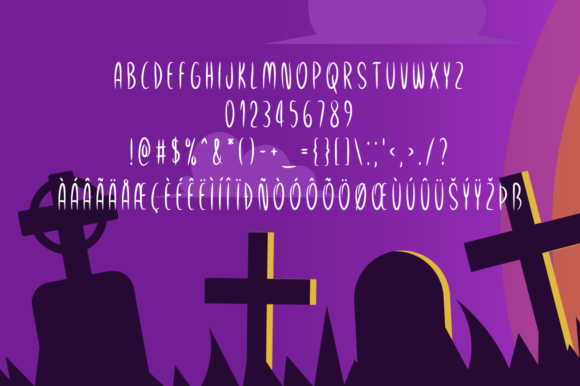
Introduction to Scary Hours Font
Have you ever been working on a creative project, staring at a blank canvas or page, and suddenly a spark of inspiration hits you? For designers, those moments are what make the job so thrilling. And if you’re planning a spooky project for Halloween, I’ve got just the thing to set your imagination ablaze – the Scary Hours Font.
This unique and spooky display font is the perfect addition to any Halloween-themed project. Its eerie and mysterious vibe is sure to send chills down your clients’ spines (in a good way, of course!). Whether you’re creating a high-quality design for a client or a personal project, the Scary Hours Font is a valuable resource that’s sure to elevate your work.
Key Features of Scary Hours Font
- Unique, modern design suitable for creative projects and artistic expressions.
Honest Review: Scary Hours Font
I recently stumbled upon the Scary Hours Font while working on a creative project that required a unique and edgy feel. As a designer, I’m always on the lookout for high-quality fonts that can elevate my designs, and this one definitely delivered.
- What works well: ✨ The font’s bold and modern design makes it perfect for headings and titles in my creative project. Its high quality and clear typography ensure that the text is readable even at larger font sizes.
- ⚠️ The font does not come with a transparent background option, which can be a bit limiting if you need to overlay text on a background image.
- ⚠️ The font is limited to a single weight, which may not be suitable for designs that require a range of font weights.
Overall, I’m impressed with the Scary Hours Font and would definitely recommend it to fellow designers looking for a high-quality, free font for their creative projects.